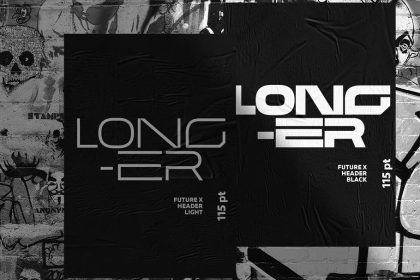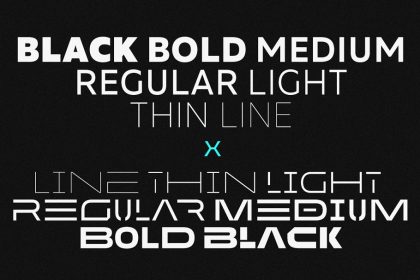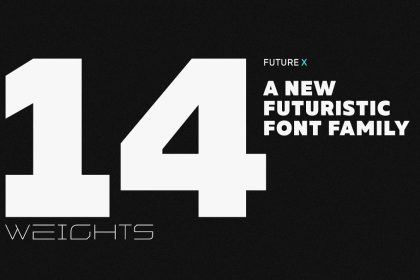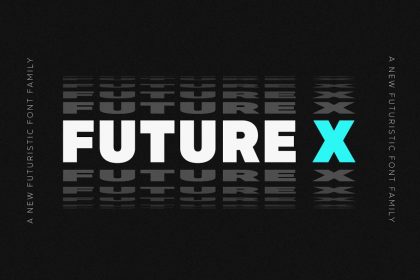
MADE Future X Font Family
Hi Font Lovers! Introducing Future X Font! It is designed and shared by MadeType. The Future X font family supports multilingual letters. The Future X will perfect for many project: logo, branding, magazines, quotes, header, blog header, poster, advertisements, etc. The Future X HEADER is perfect for headlines, blog headers, posters, newspapers, logo, book design, music posters, etc. Toggle ‘Caps Lock’ to use the alternate letters in the Future X HEADER.